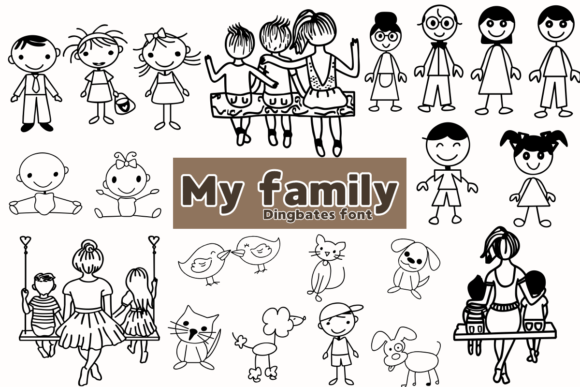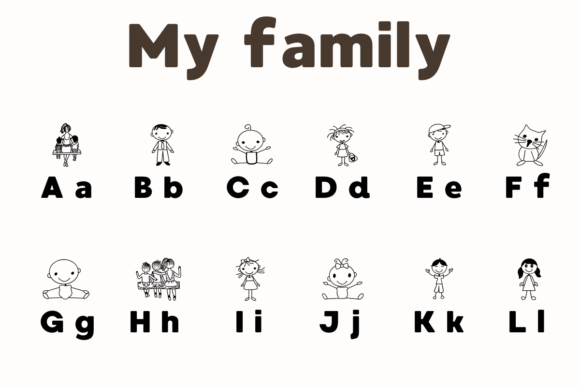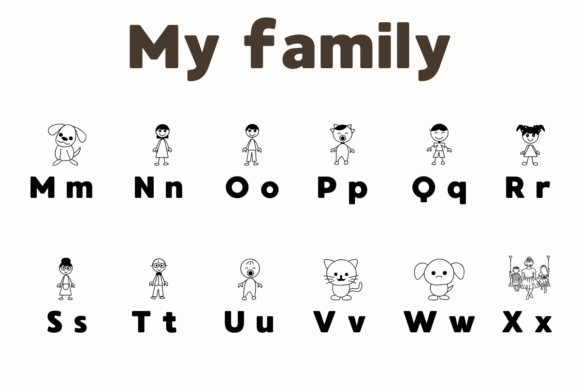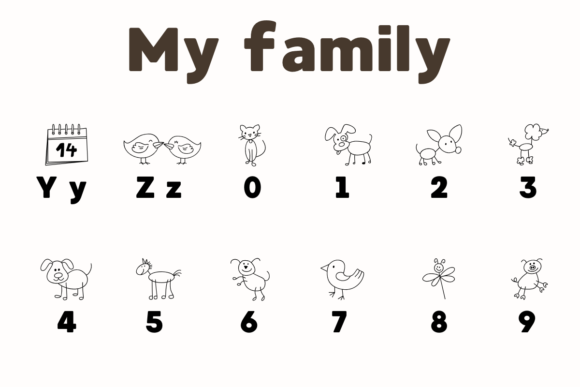
My Family Font
About the My Family Font
Experience the unique personality of My Family Font, a font designed for impact. “My Family” is a fun dingbat font that uses pictures instead of letters. Each picture shows a different family member, like a mom, dad, kids, grandparents, and even pets. It’s great for adding a personal touch to crafts, cards, and projects that celebrate family.
Its playful nature makes “My Family Font” ideal for children’s books, scrapbooking, invitations to family gatherings, or branding for businesses focused on family values. It works exceptionally well in headlines or short, impactful phrases where its visual storytelling can shine. Avoid using it for body text or lengthy passages; its illustrative nature is not suited for extended readability.
The font’s friendly and approachable personality pairs well with softer sans-serif fonts like Open Sans for body copy, creating a balanced contrast between visual storytelling and clear readability. For a more sophisticated feel, consider pairing it with a classic serif like Garamond for supporting text, lending a touch of elegance without overpowering the font’s inherent charm.
For a bolder look, a geometric sans-serif such as Montserrat can provide a modern counterpoint. Remember to maintain sufficient spacing to prevent visual clutter, given the font’s illustrative nature.
My Family Font Usage Examples
My Family Font Example